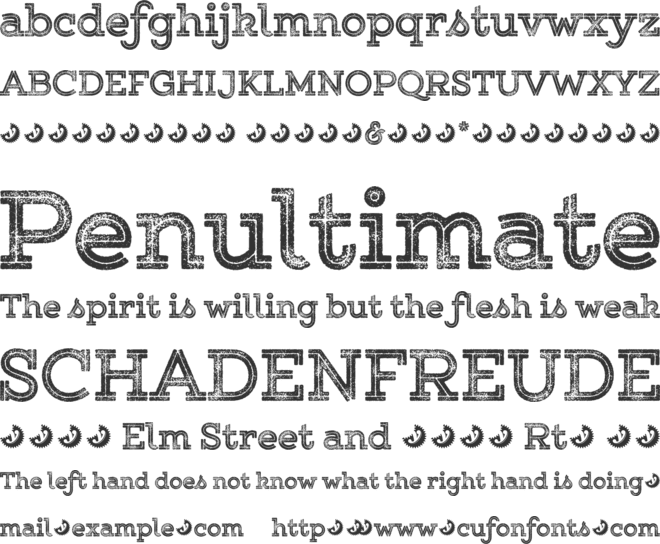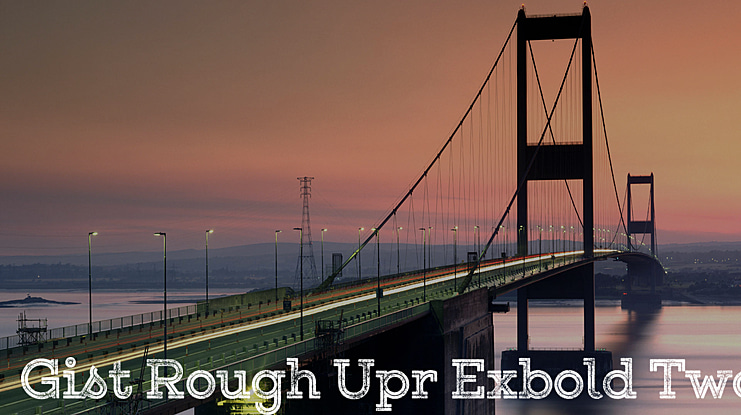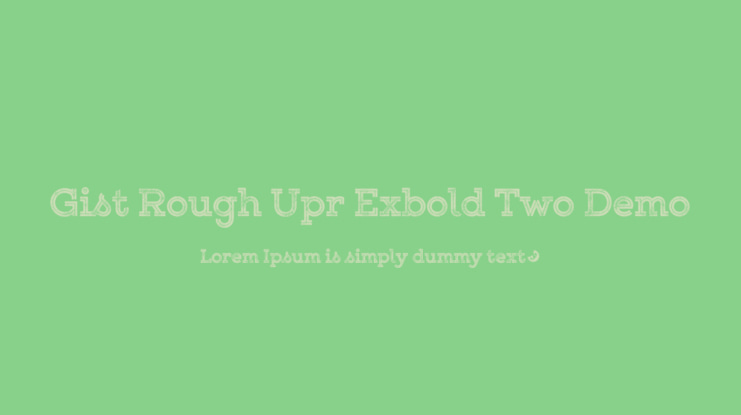
Gist Rough Upr Exbold Two Demo Font
Gist Rough Upright Extrabold Demo is free for commercial use. It includes all the upper and lowercase characters and funky alternates, but doesn't include numbers, punctuation and other characters. The Contextual Alternates feature has been diabled for this demo, but the contextual alternate characters are still accessable in the font.
Gist Rough is the letterpress version of Gist from Yellow Design Studio. It's warm and weathered with a retro yet modern vibe. Every weight includes 3 versions with varying levels of texture which can be used individually or mixed to taste. It has highly detailed texture and looks great even at very large sizes.
With 627 glyphs per weight, Gist Rough is highly customizable…either keep it simple with the base character set or use ligatures, alternates and swashes for extra flair. All-caps typesettings have an especially retro edge. Also included are line layers for adding color to the inline areas. As a bonus, try Gist Rough Light Three for free!